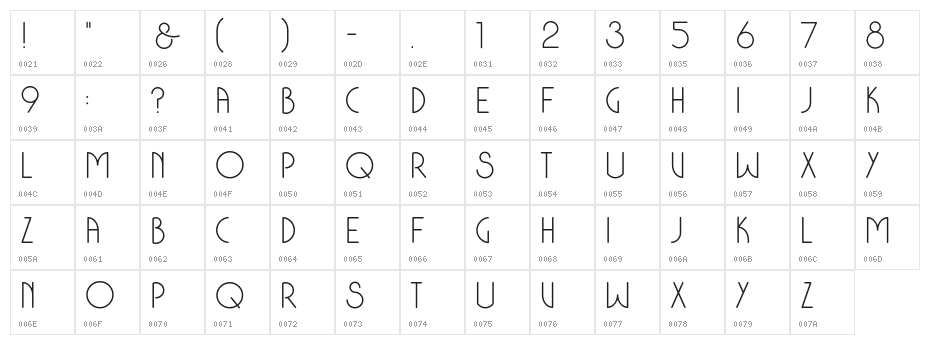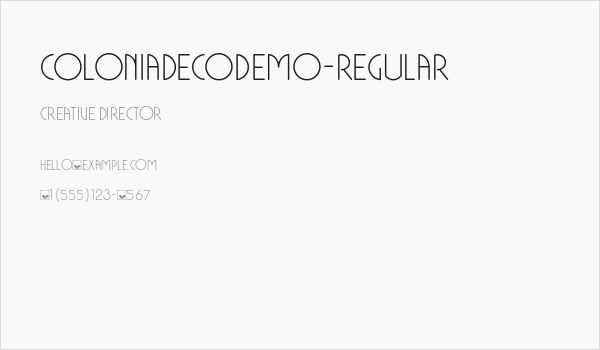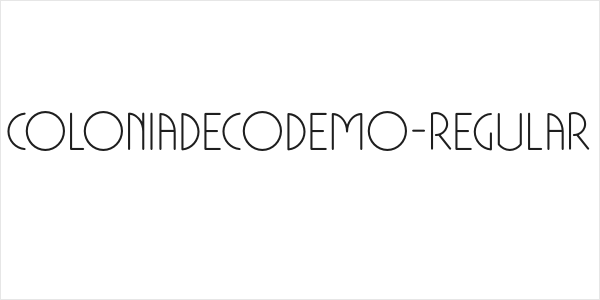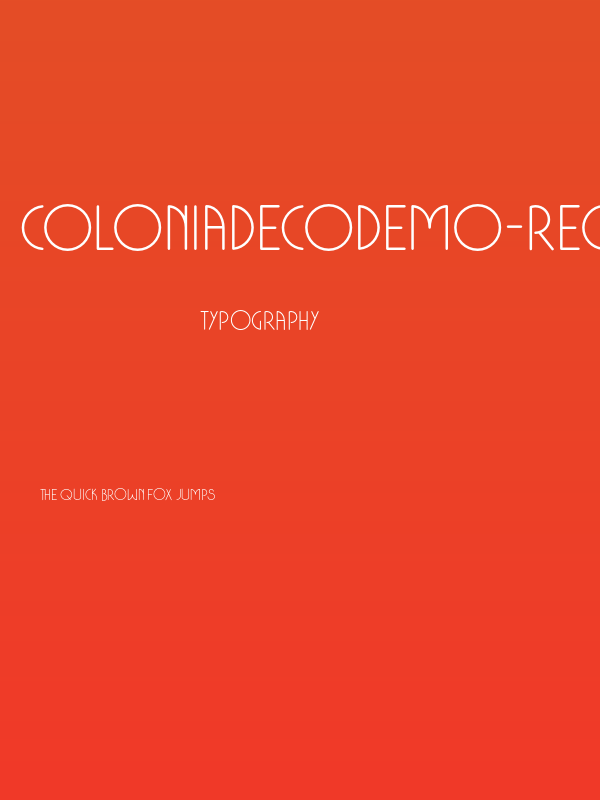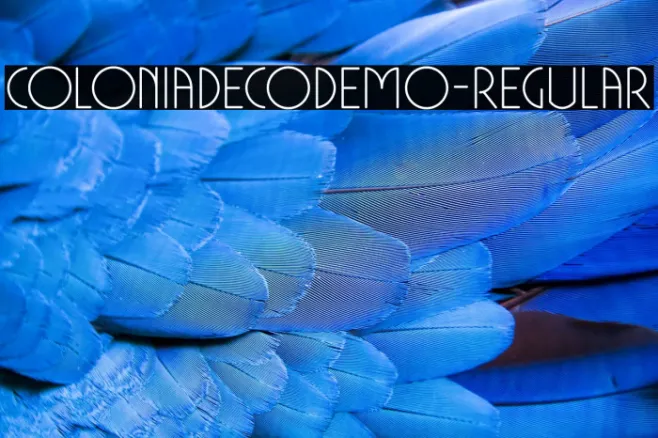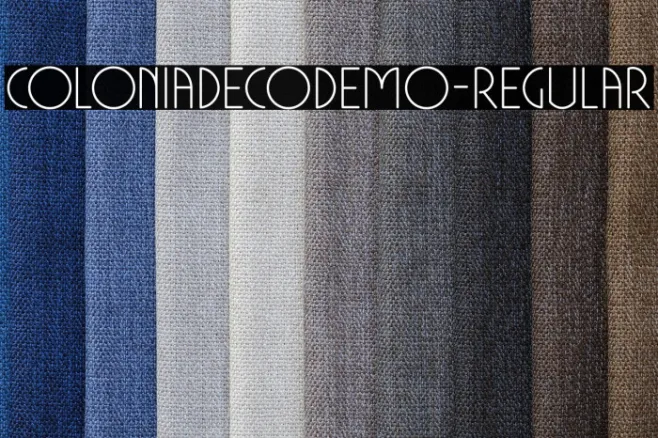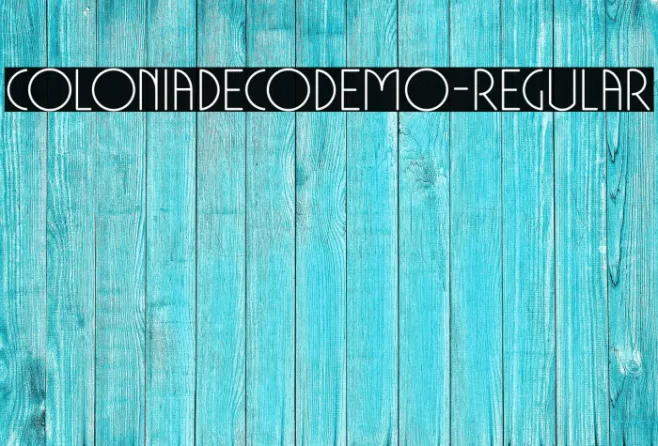
ColoniaDecoDEMO-Regular Font
✎ Art Deco
ColoniaDecoDEMO-Regular Description
This font features a sleek and elegant design with a distinct Art Deco influence. The characters are tall and narrow, with a consistent stroke width that gives it a clean and modern appearance. The uppercase letters are particularly striking, with geometric shapes and sharp angles that add a touch of sophistication. The lowercase letters maintain the same aesthetic, offering a harmonious blend of style and readability. Numbers and special characters are designed to complement the overall look, making this font versatile for various design applications.